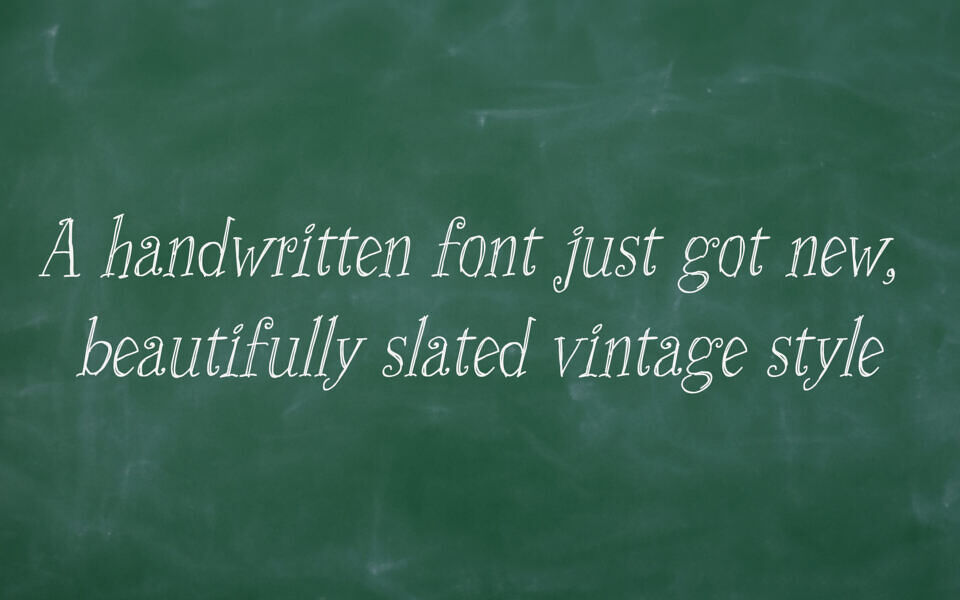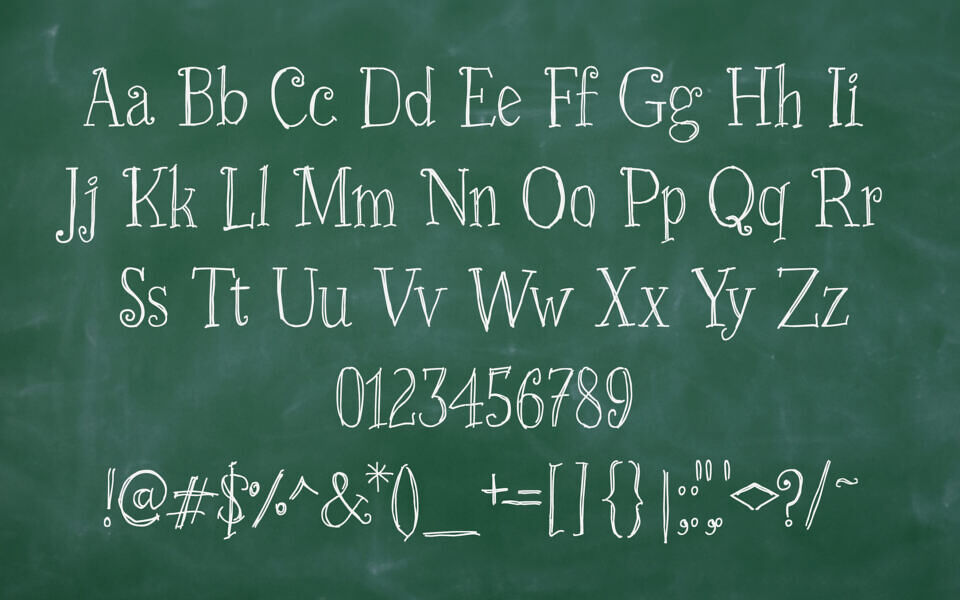
Just Skinny is a whimsical, hand-drawn font by Galdino Otten, featuring thin, elongated letterforms with a playful, uneven stroke.
Its tall uppercase characters and quirky lowercase letters add charm and personality, making it ideal for children’s books, creative posters, and playful branding. With a light weight and low contrast, this decorative display font brings an artistic, informal feel to any project.